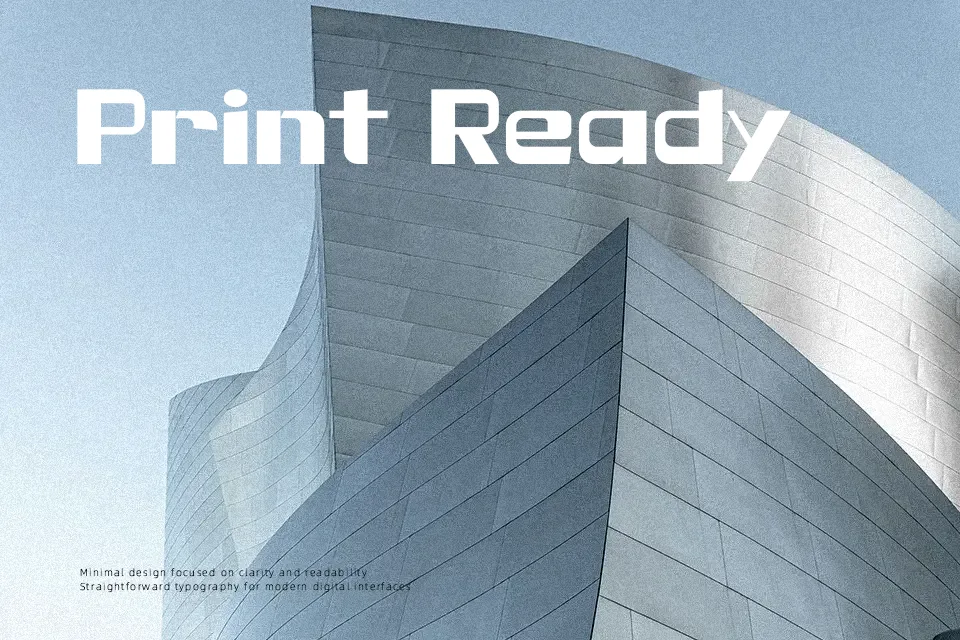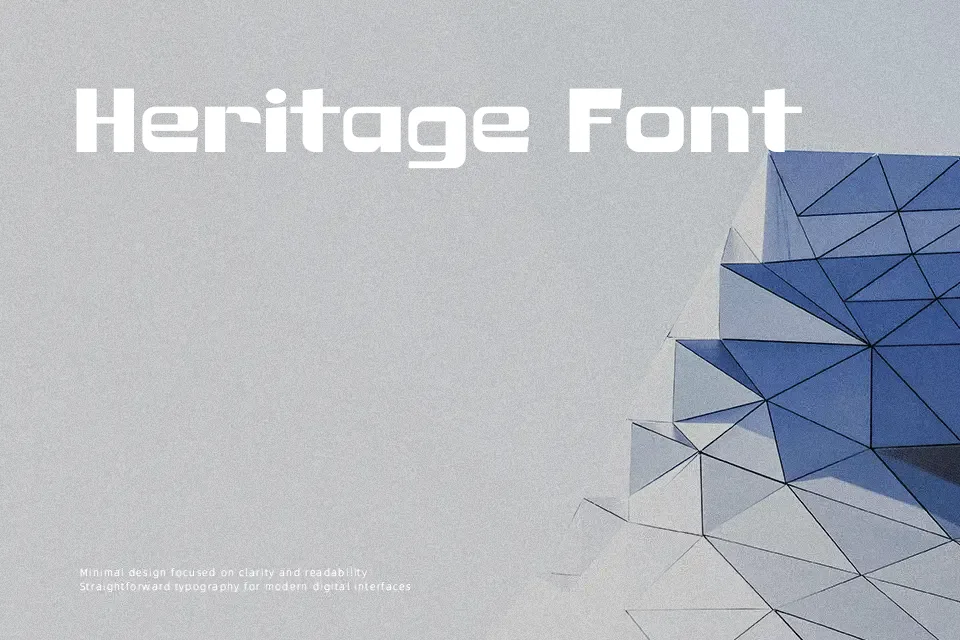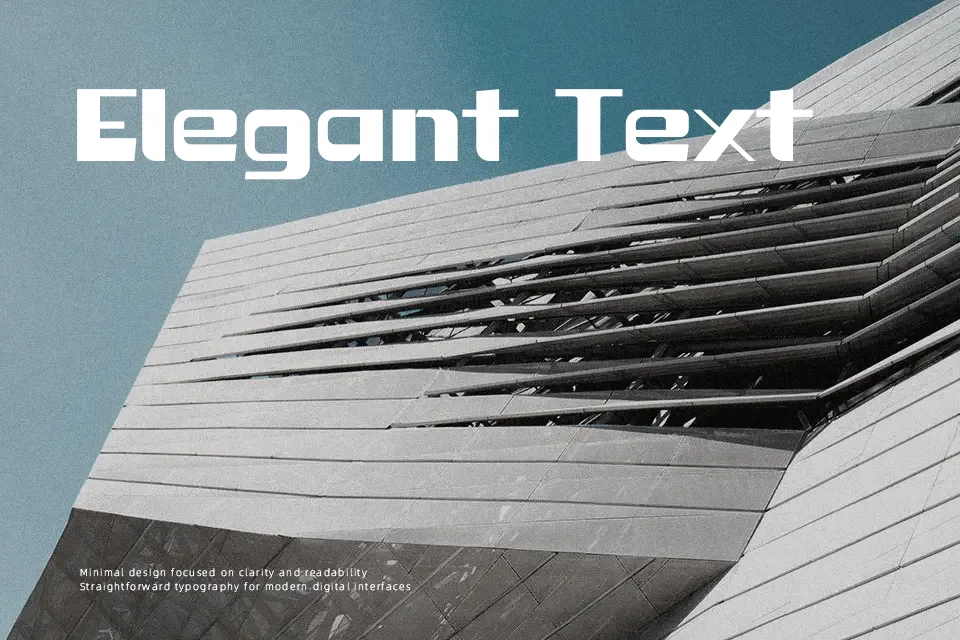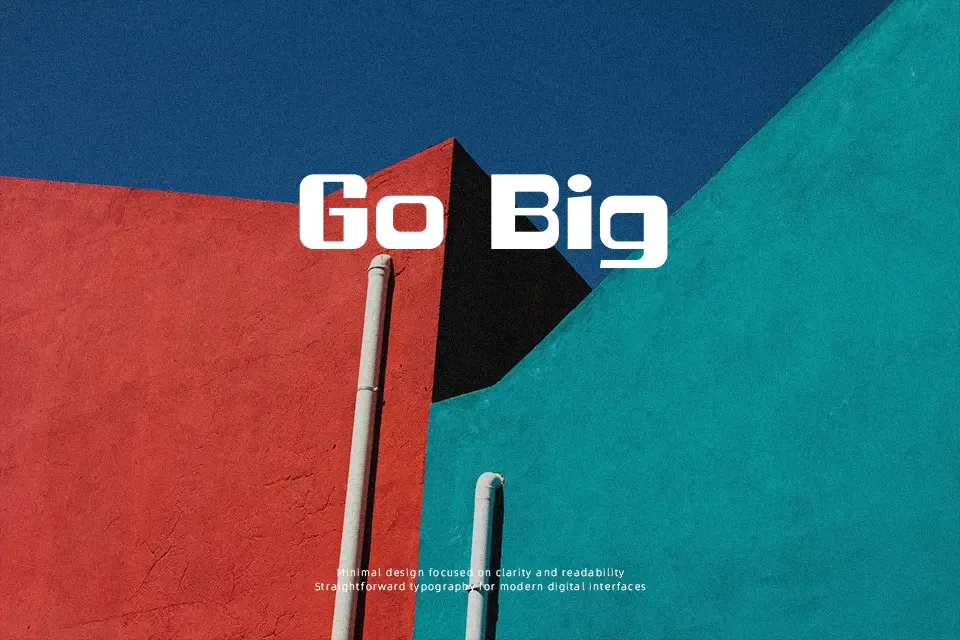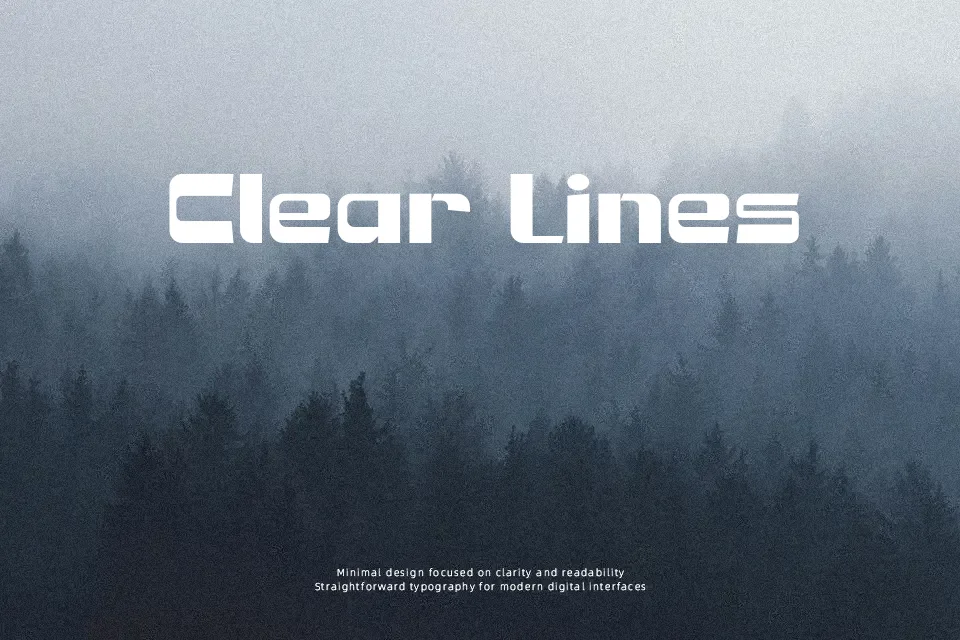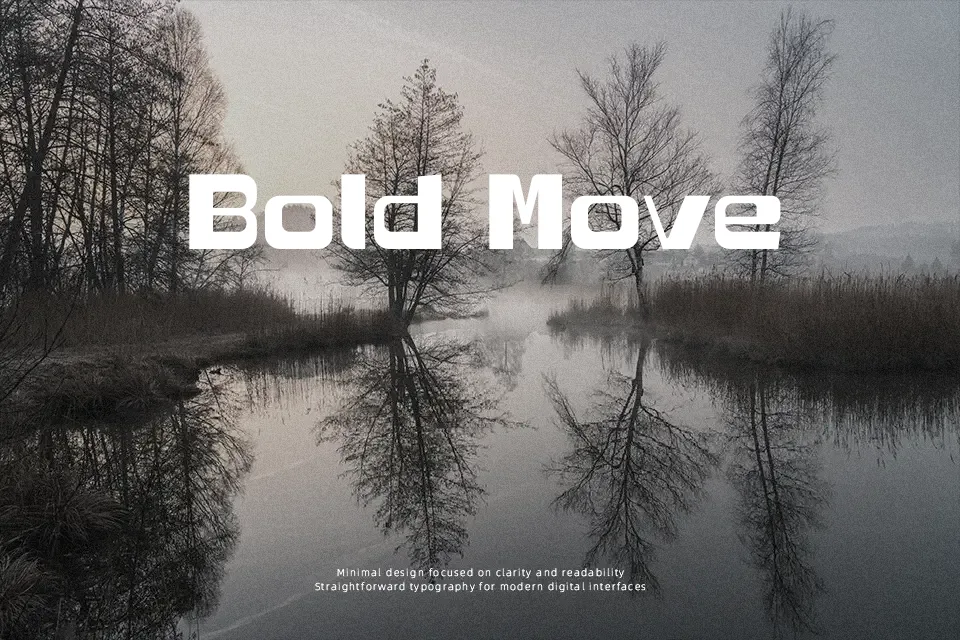
Bufs Font
Designed by Rhtypefoundry
Bufs Font combines rigid geometric construction with tight, angular strokes that give every letter a clipped, energetic edge. The weight sits in a confident mid-to-heavy range, with compact counters and relatively narrow spacing that naturally pushes text toward short, impactful lines rather than long reading paragraphs. Visually it lands in the contemporary display family: assertive, slightly aggressive, but still clean enough to sit alongside minimalist layouts. In practice, it works well for music covers, sports graphics, tech event posters, or fashion drops where you want a sense of motion and attitude. It struggles in small body sizes or dense UI copy, where the sharp forms can feel noisy and fatiguing over time.
high-impact poster titles
edgy branding for music or streetwear labels
sports or esports event graphics
tech or gaming social media visuals
long-form body text or articles
small UI labels or dense app interfaces
formal editorial layouts or corporate reports
highly traditional wedding or ceremony invitations
Perfect for branding, gaming, and headline, with a bold and display style.